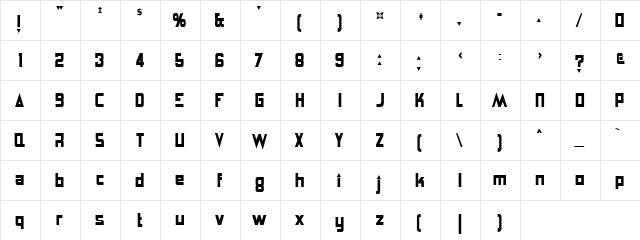
Algea Regular
Design Context for Algea Typeface
Algea offers clean, dependable letterforms without strong stylistic allegiance, making it a practical choice for designers who need flexibility.